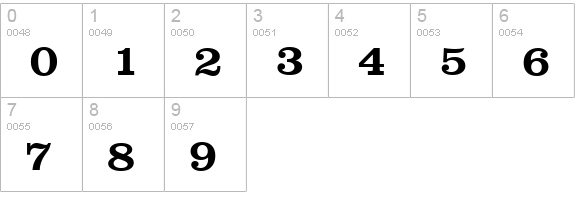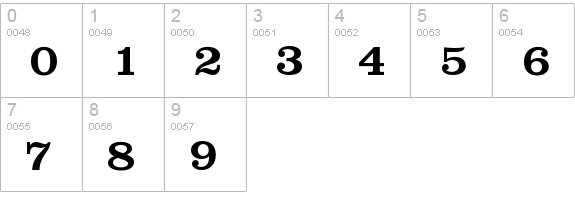
ClareSerial Bold Font Details
ClareSerial Bold is a strong, high-contrast variant in the ClareSerial typeface family \xE2\x80\x94 well suited to headlines, attention-grabbing titles, and strong calls-to-action.
ClareSerial Bold font is a versatile and eye-catching typeface that is perfect for headlines, titles, and other bold design elements. Its strong and distinctive letterforms make it stand out, while still maintaining a sense of elegance and sophistication. The bold weight of this font ensures maximum impact, making it ideal for projects that require a strong visual presence. But the best part? ClareSerial Bold font is completely free to download at FontsMarket.com! This means you can elevate your designs without breaking the bank. Whether you're working on a poster, logo, or website, ClareSerial Bold font will help you make a statement and leave a lasting impression. Download it now and start using this stunning font in your projects today!